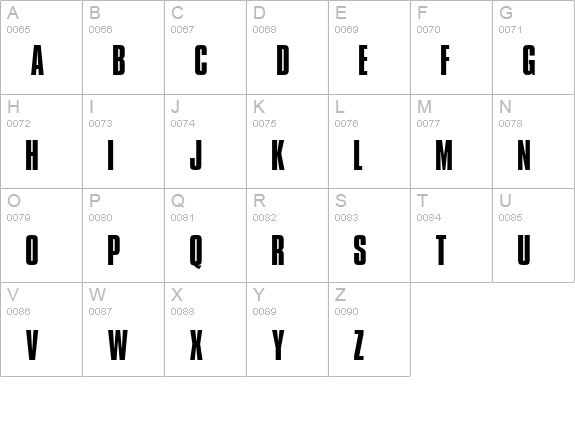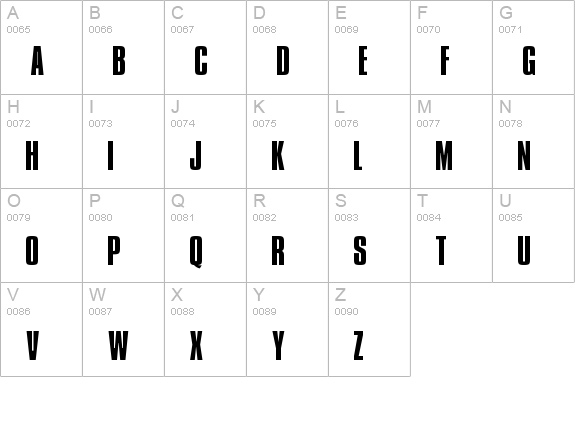
Compacta ICG Font Details
Compacta ICG is a versatile and modern font that combines a sleek, compact design with elegant curves and sharp angles. Its clean lines and geometric shapes make it perfect for a wide range of design projects, from logos to posters to websites. The font's condensed style allows for efficient use of space while maintaining readability and impact. One of the best things about Compacta ICG is that it is available for free download at FontsMarket.com. This means that you can easily access this high-quality font without any cost, making it a valuable addition to your font library. Whether you are a designer looking for a fresh new typeface or a business owner in need of a professional font for your branding, Compacta ICG is sure to meet your needs with its contemporary style and versatility. Download it today and see how it can elevate your design projects to the next level.